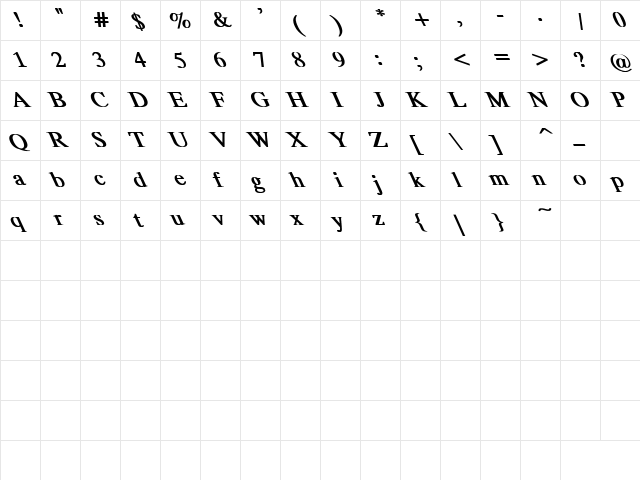
MicroTiempo-Normal Lefty Bold
Design Context for MicroTiempo-Normal Lefty Typeface
MicroTiempo-Normal Lefty offers clean, dependable letterforms without strong stylistic allegiance, making it a practical choice for designers who need flexibility. Its bold stroke weight gives it real presence on the page.